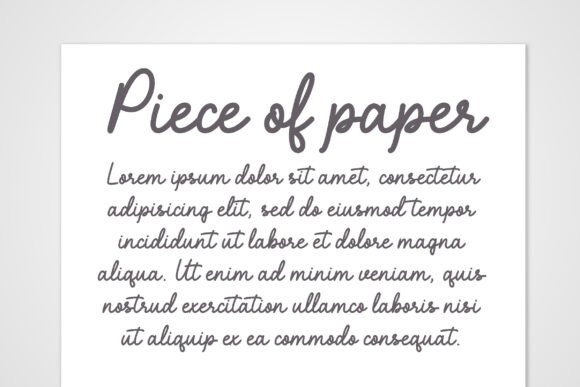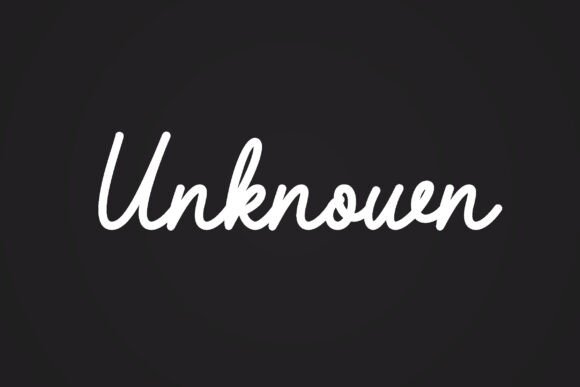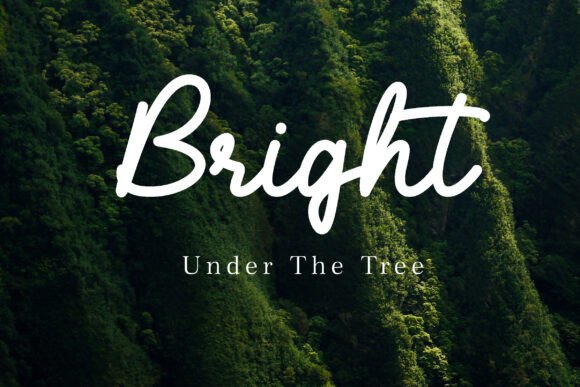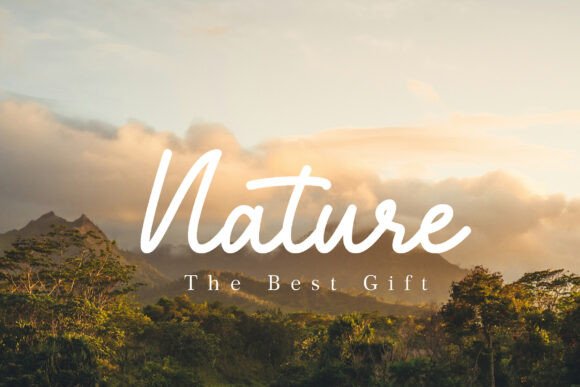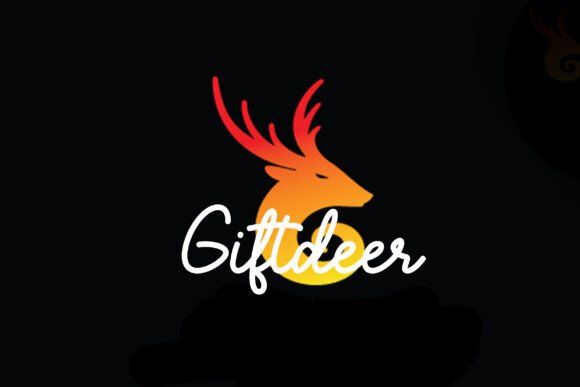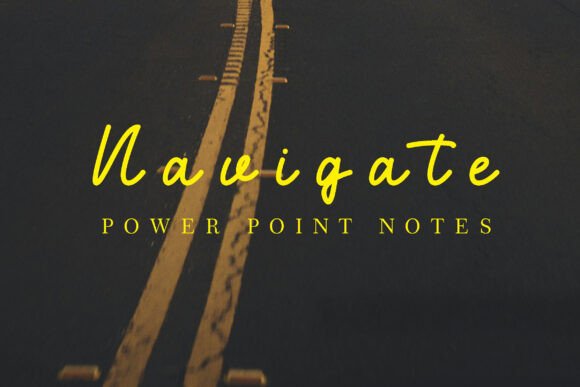
Introducing Giftmas Font: The Ultimate Monoline Script for Creative Freedom
Are you a designer, crafter, or creative looking for a font that embodies elegance, modernity, and freedom? Look no further than Giftmas Font, a stunning monoline script that champions creativity and inspires your next project. In this article, we’ll dive into the features, benefits, and uses of Giftmas Font, and explore why it’s a must-have for any creative arsenal.
What is Giftmas Font?
Giftmas Font is a beautiful, modern monoline script that exudes elegance and sophistication. Its clean lines, simple shapes, and flowing curves make it a versatile font suitable for a wide range of applications. Whether you’re designing headlines, cards, invites, logotypes, magazines, or movie posters, Giftmas Font is the perfect choice. Its trendy and cool vibe also makes it ideal for t-shirts, packaging, and branding projects.
Key Features of Giftmas Font
- Monoline Script: Giftmas Font features a monoline script style, characterized by its smooth, flowing lines and elegant curves.
- PUA Encoded: This font is PUA (Private Use Area) encoded, which means you can access all the glyphs and alternates with ease. This feature allows you to create stunning text arrangements and explore a wide range of creative possibilities.
- Simple and Trendy: Giftmas Font boasts a simple, yet trendy design that makes it perfect for modern designs and projects.
- Elegant and Modern: The font’s elegant and modern aesthetic makes it suitable for high-end branding, luxury packaging, and sophisticated marketing materials.
Benefits of Using Giftmas Font
So, why choose Giftmas Font for your next project? Here are just a few benefits of using this amazing font:
- Creative Freedom: Giftmas Font champions freedom and inspires creativity, giving you the flexibility to experiment with different designs and ideas.
- Versatility: This font is suitable for a wide range of applications, from digital designs to print materials, and from headlines to body text.
- Easy to Use: Giftmas Font is PUA encoded, making it easy to access and use all the glyphs and alternates.
- High-Quality Design: The font is designed with high-quality craftsmanship, ensuring that your projects look professional and polished.
Use Cases for Giftmas Font
Giftmas Font is an incredibly versatile font that can be used in a variety of creative projects. Here are some use cases to get you started:
- Headlines and Titles: Use Giftmas Font to create stunning headlines and titles for your blog posts, articles, and marketing materials.
- Cards and Invites: Design beautiful cards, invites, and party decorations with Giftmas Font.
- Logotypes and Branding: Create a unique logotype or brand identity with Giftmas Font.
- Magazines and Newspapers: Use Giftmas Font for article titles, headings, and body text in your magazine or newspaper designs.
- Movie Posters and T-Shirts: Giftmas Font is perfect for creating eye-catching movie posters and t-shirt designs.